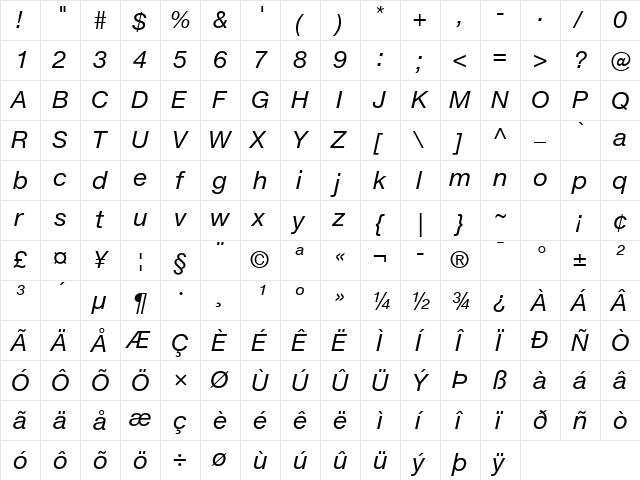
Helvetica Neue eText Pro Italic
| Foundry | Linotype GmbH |
| Designer | Linotype Design Studio |
Design Context for Helvetica Neue eText Pro Typeface
Helvetica Neue eText Pro offers clean, dependable letterforms without strong stylistic allegiance, making it a practical choice for designers who need flexibility. The slanted form adds forward momentum and visual energy.